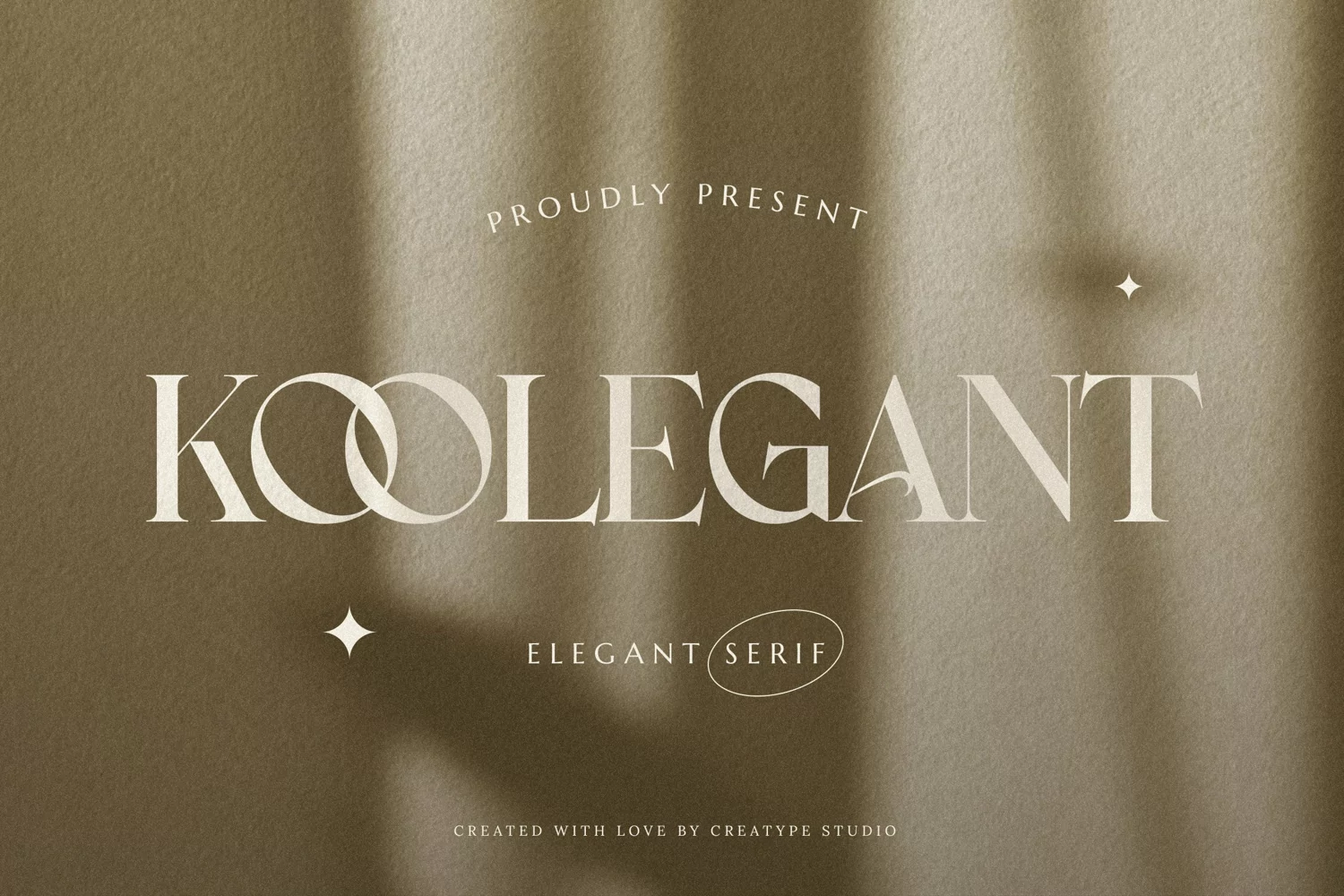
Koolegant Elegant Serif
Koolegant
Koolegant, a form of Elegant Serif is a fashionable and modern elegant serif font with some sexy stylish extras
Koolegant is perfect for branding projects, logos, wedding designs, social media posts, advertisements, product packaging, product designs, label, photography, watermark, invitation,
stationery, and any projects that need handwriting taste.
• Ton of glyphs
• Ligature & Alternate
• Fonts include multilingual support for; Afrikaans, Albanian, Czech, Danish, Dutch, English, Estonian, Finnish, French, German, Hungarian, Italian, Latvian, Lithuanian, Norwegian, Polish, Portuguese, Slovak, Slovenian, Spanish, Swedish.